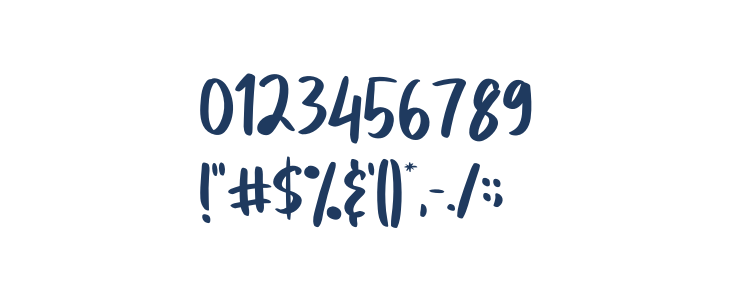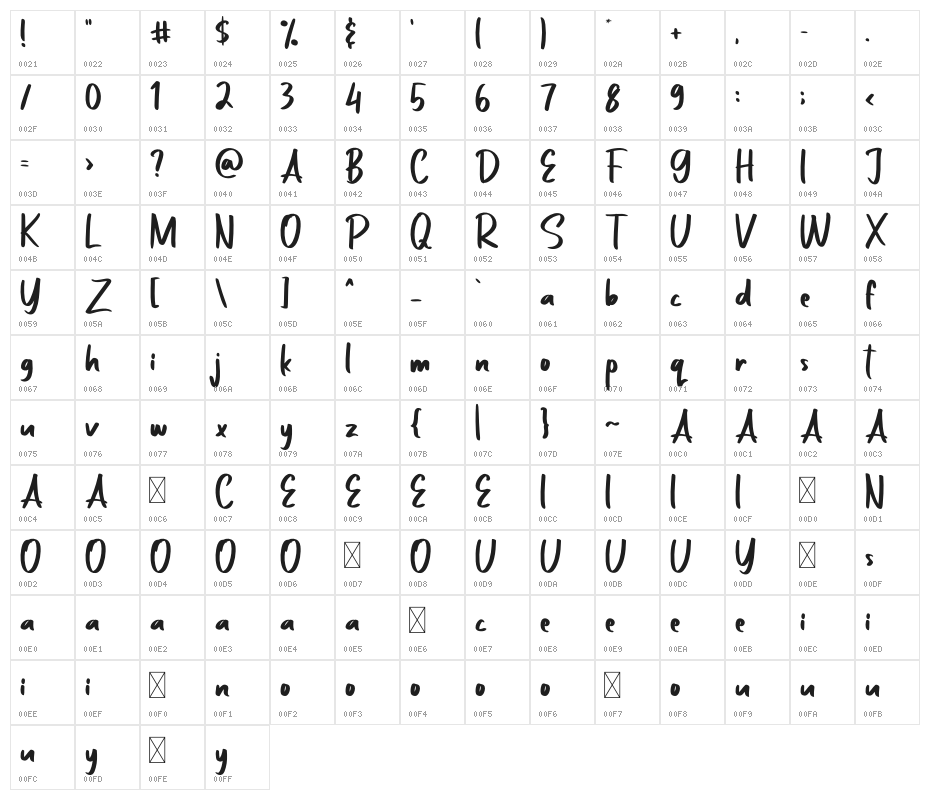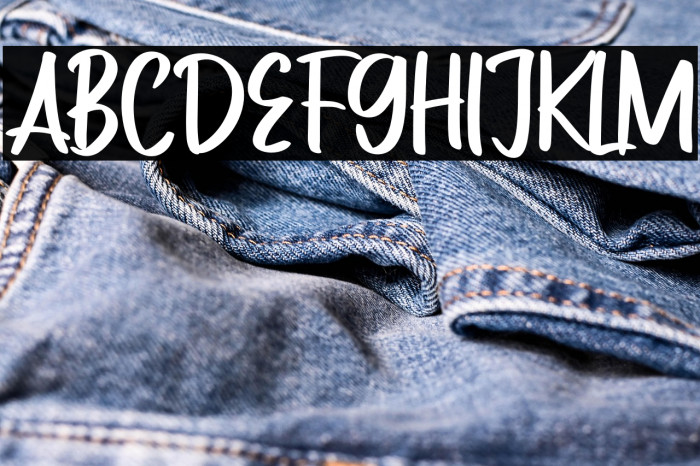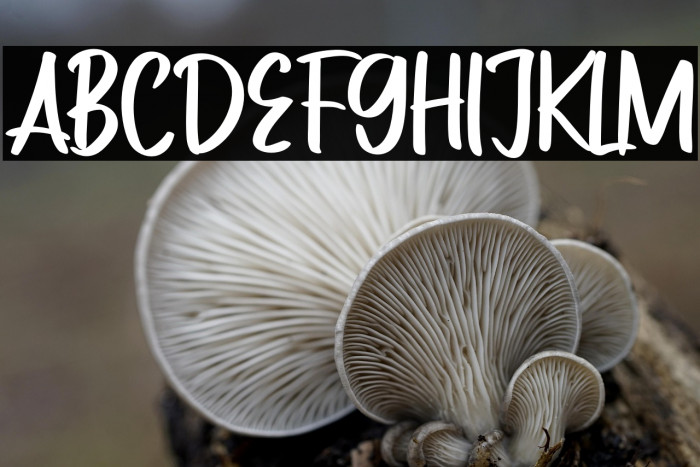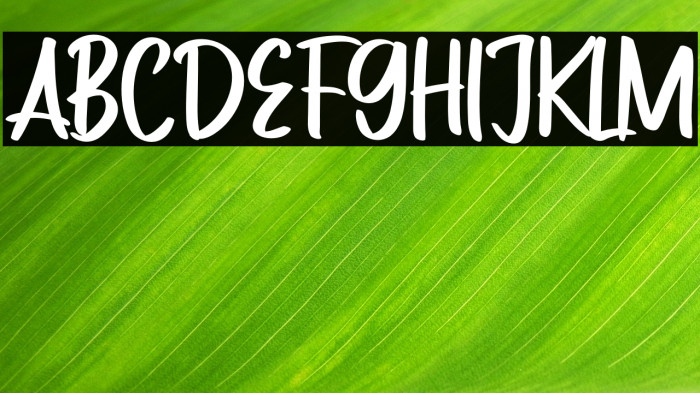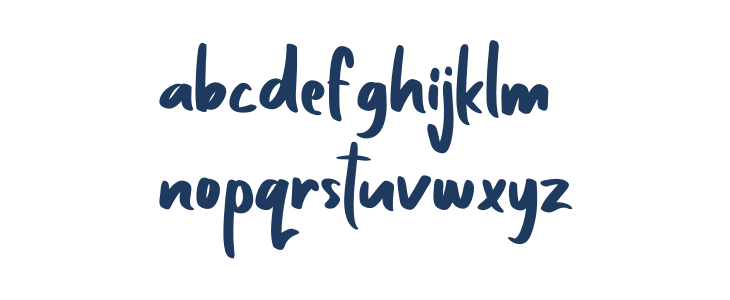
Zaitun Font
Zaitun Description
This font features a lively and dynamic handwritten style, characterized by its bold and expressive strokes. The uppercase letters are tall and slightly narrow, with a playful, informal appearance. The lowercase letters maintain a consistent flow, enhancing the font's casual and approachable feel. Numbers are bold and clear, ensuring readability. Special characters are well-integrated, matching the overall energetic style. The font's design is perfect for projects that require a personal touch, such as invitations, greeting cards, or creative branding.